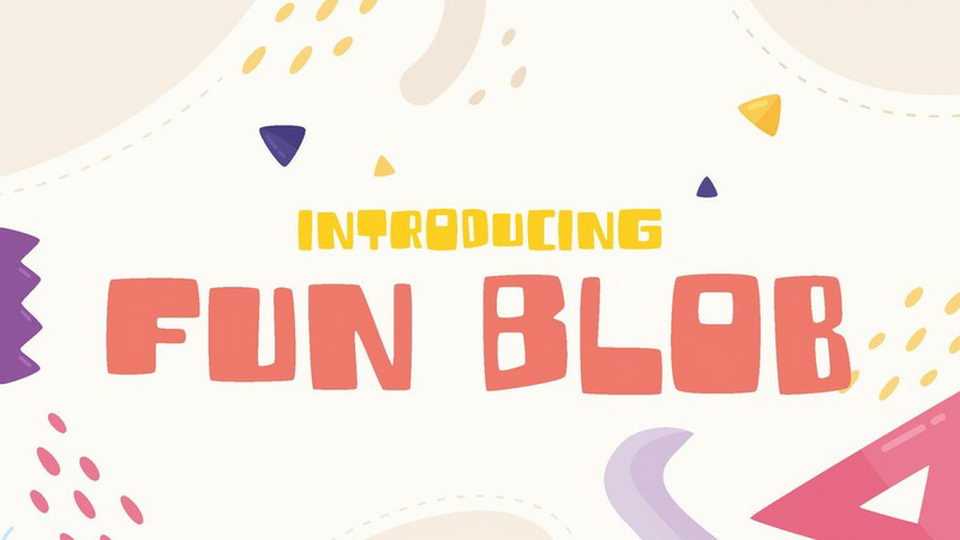
Download Fun Blob font, a playful display typeface. Having a rounded corner with quirky, and happy shape, will make Fun Blob emphasize on every word you put on the screen.